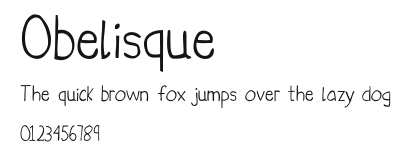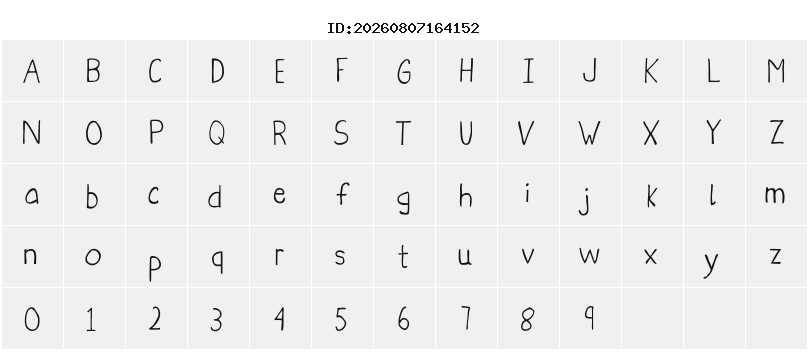
Obelisque.otf is a modern, elegant sans-serif font designed for ultimate readability and visual harmony. Perfect for branding, headlines, web design, and print materials.